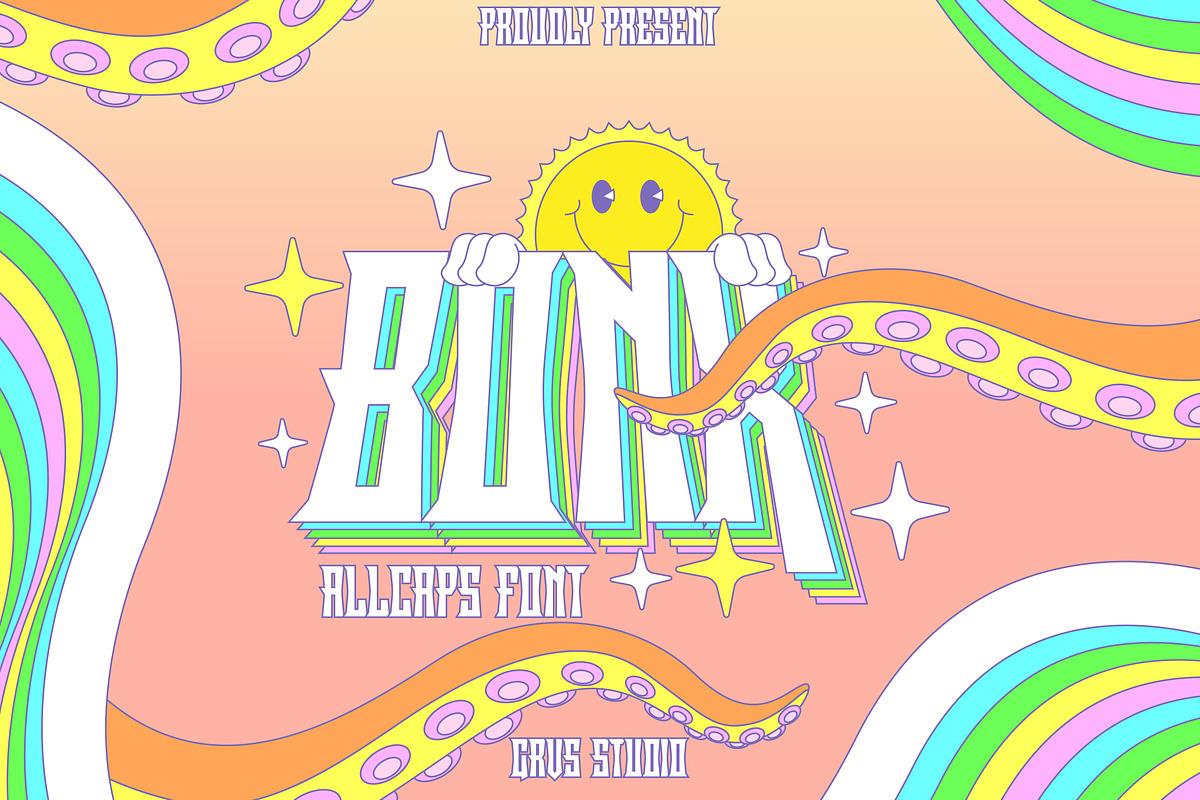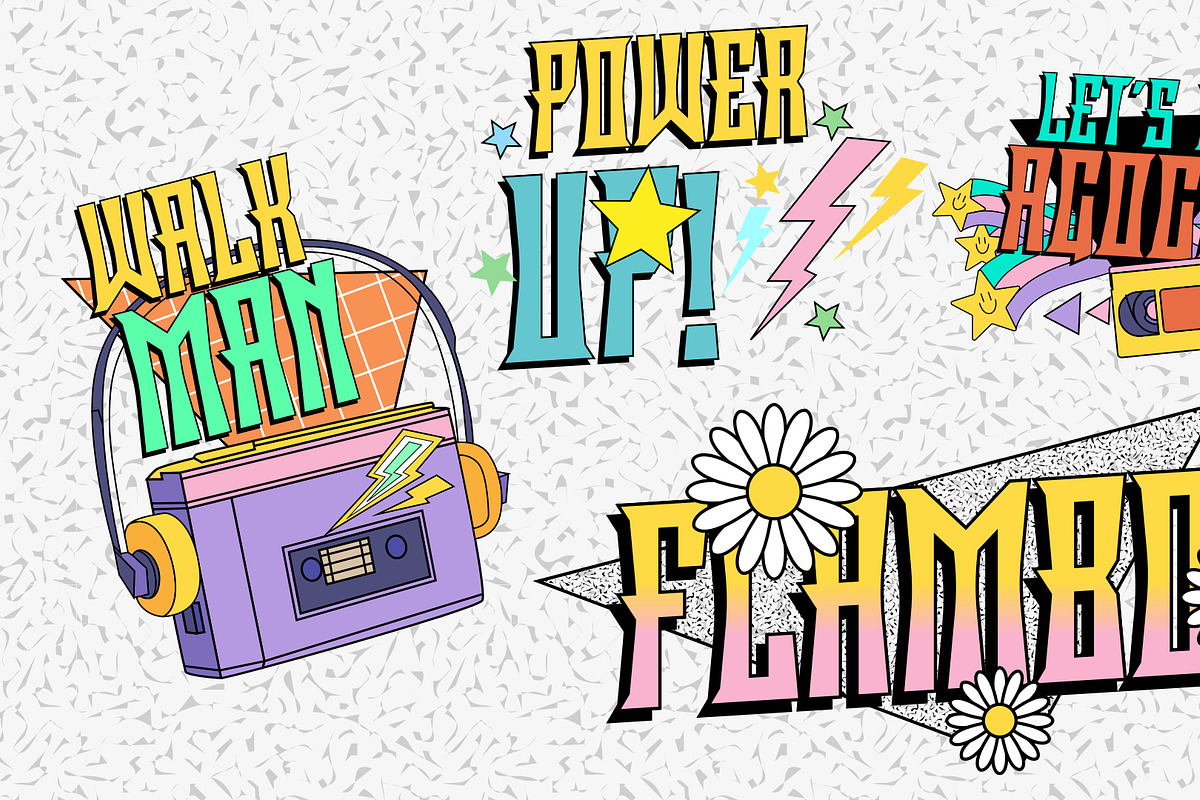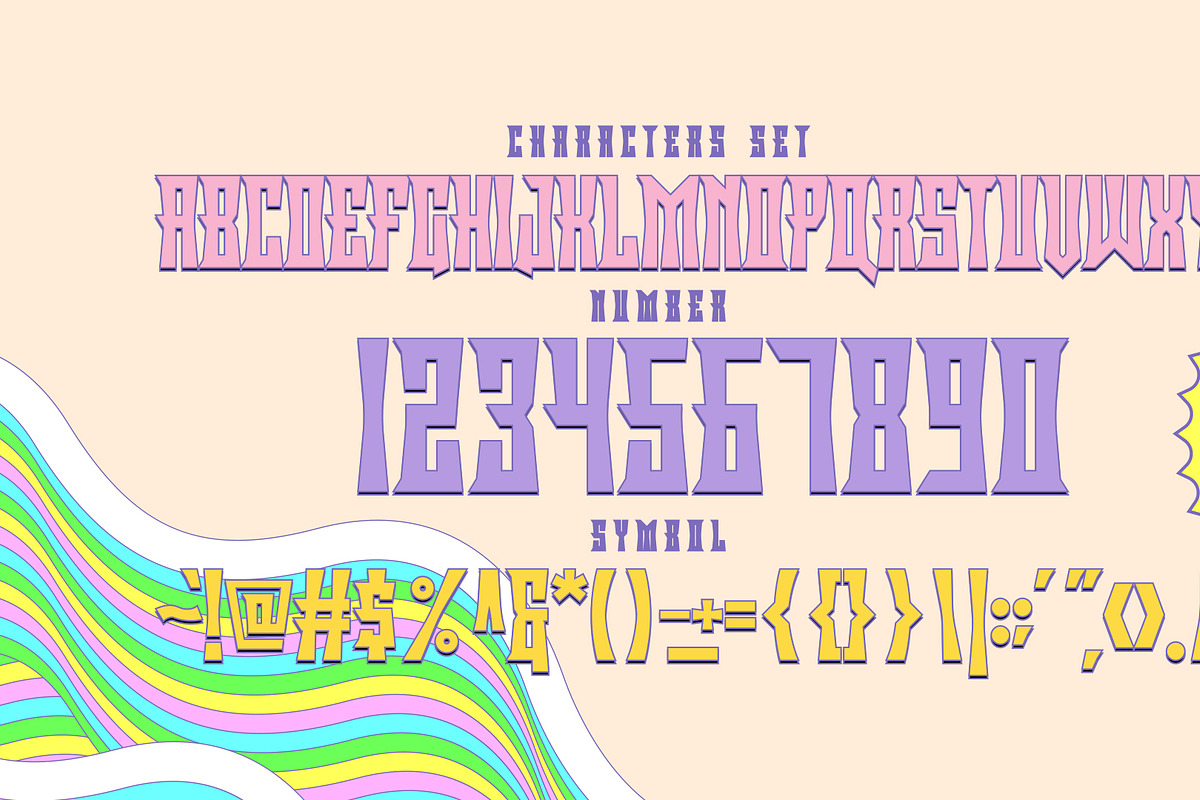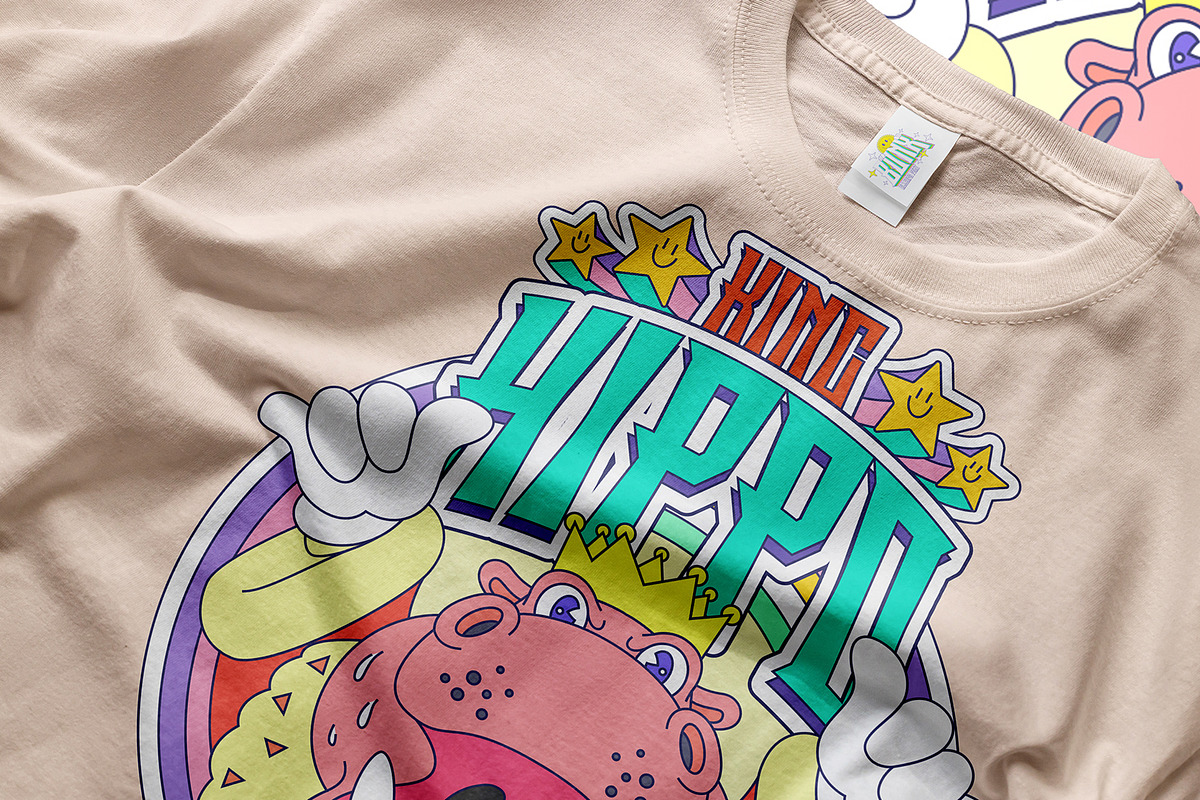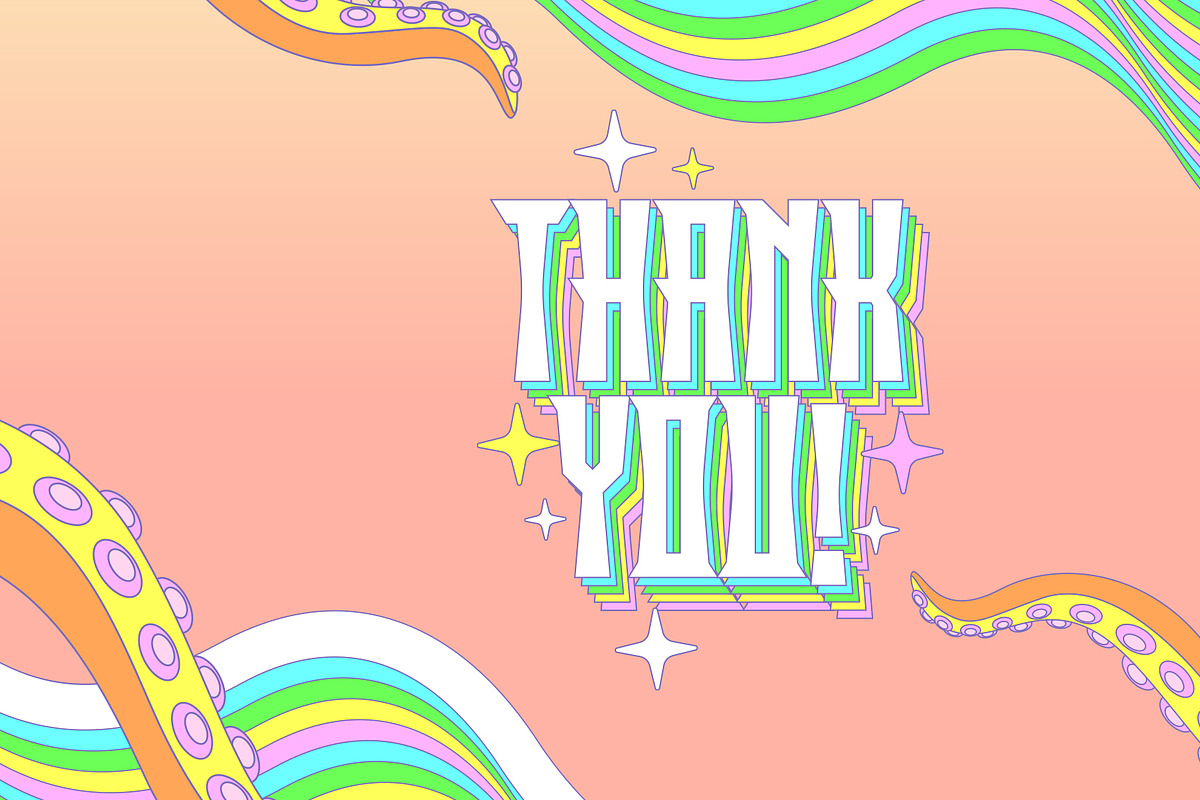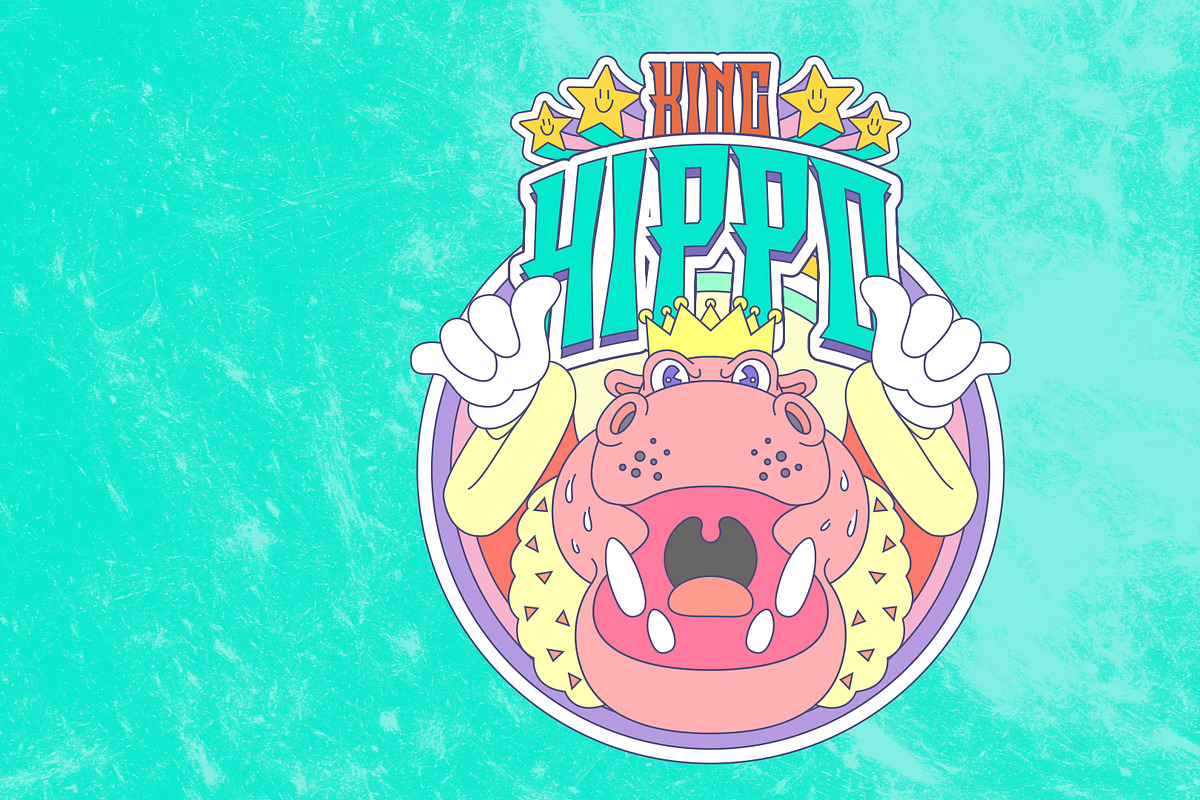
Bonx Allcaps Font
GRVS Bonx Font is our new item that is suitable for your team logo, or community logo.
Great for Logo, Sticker, Jersey, Invitation Card, Brochure, etc.